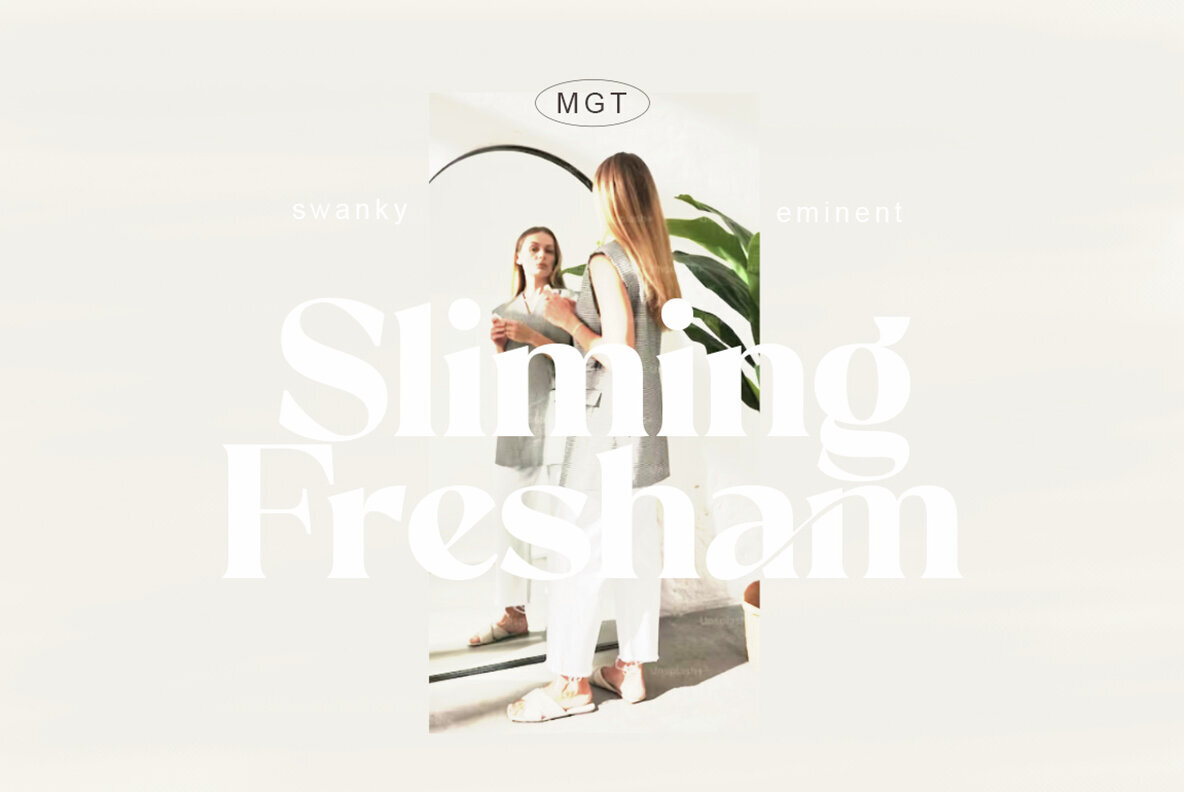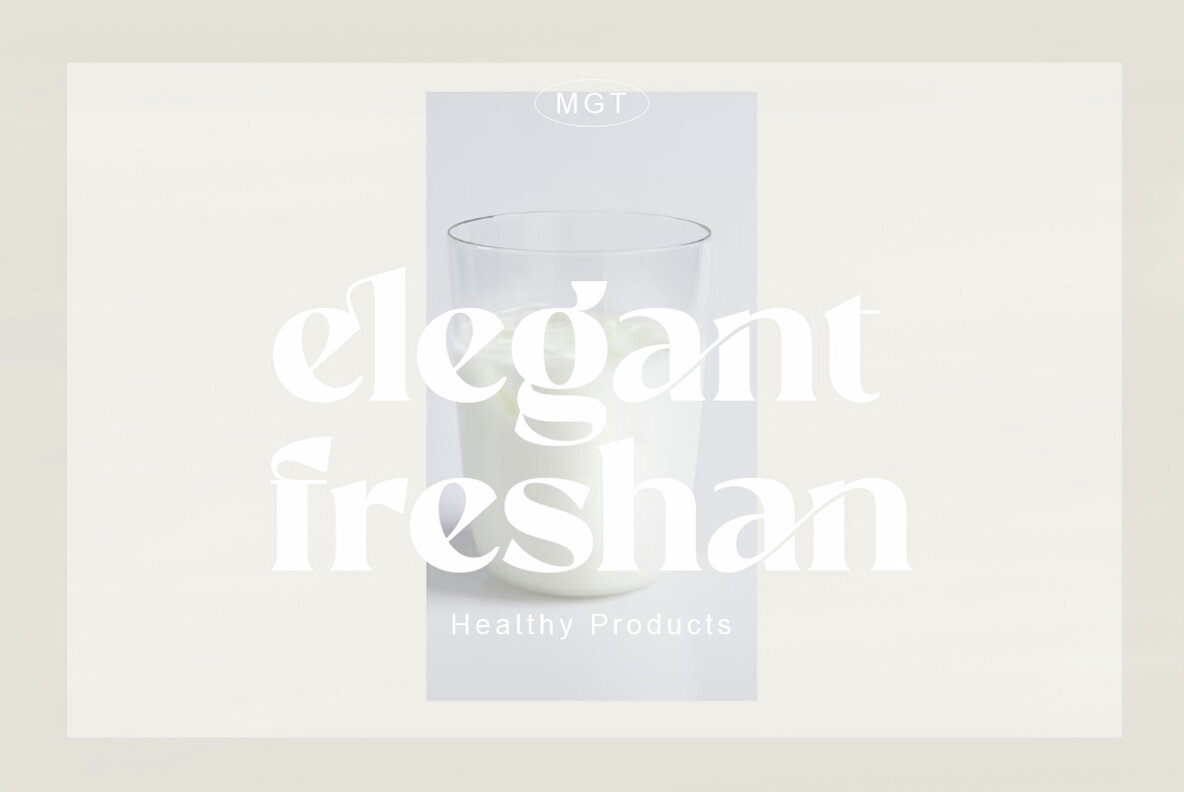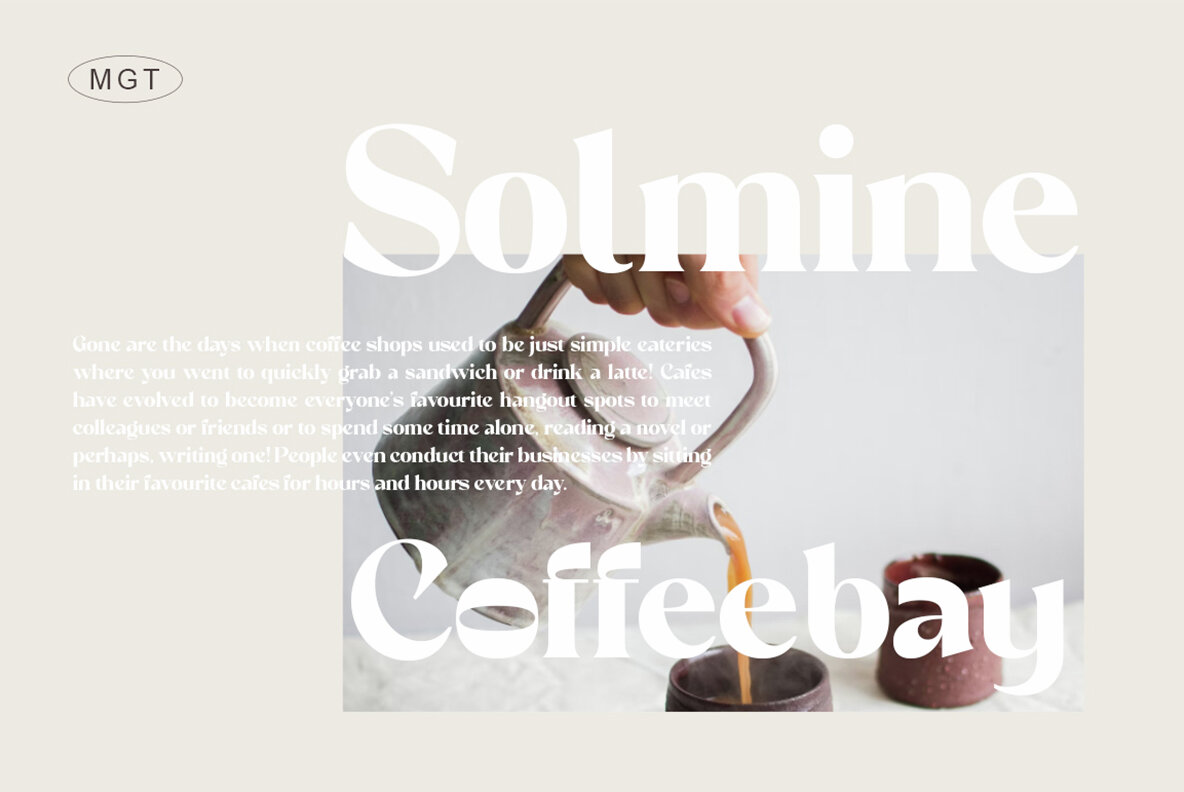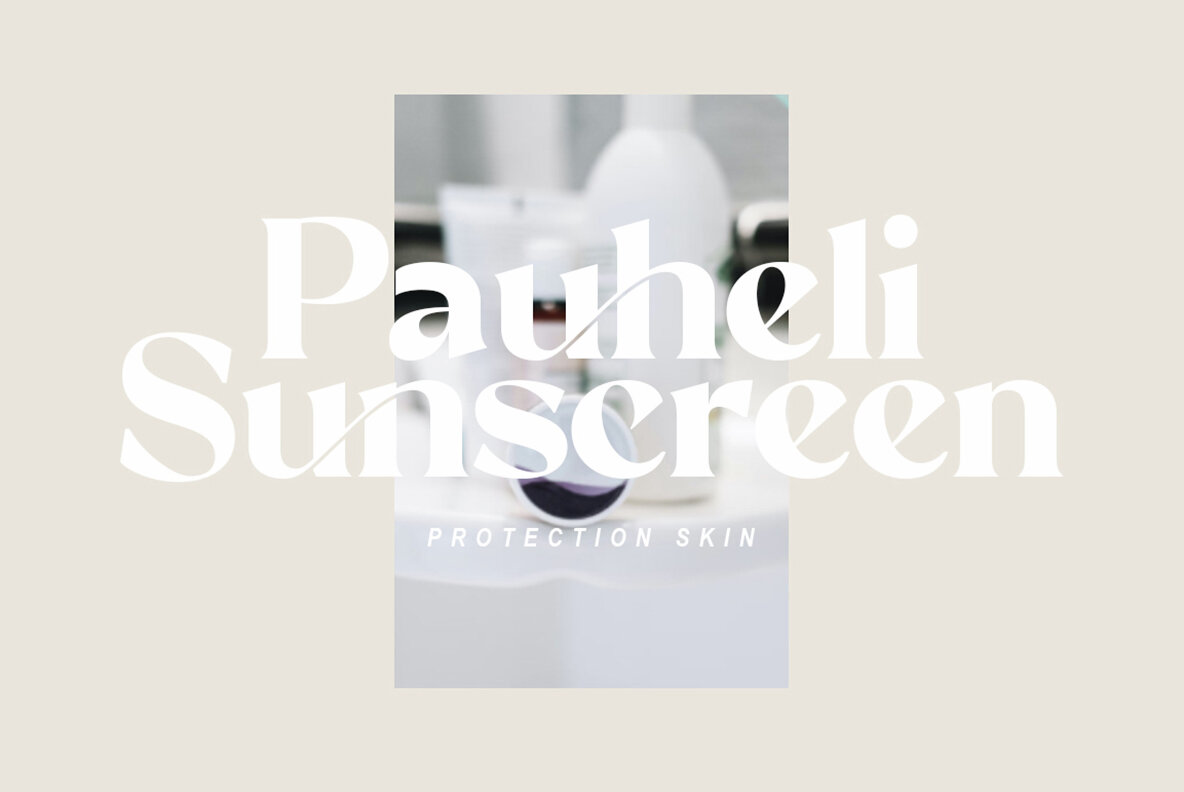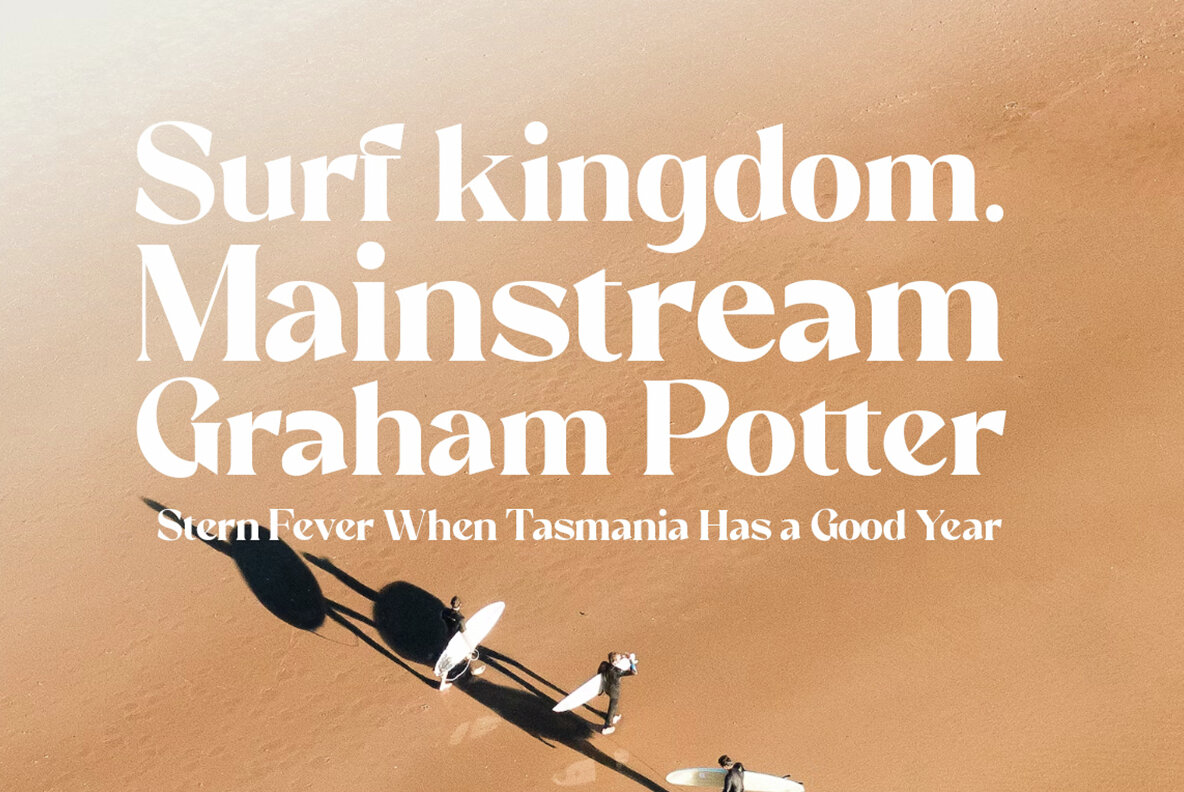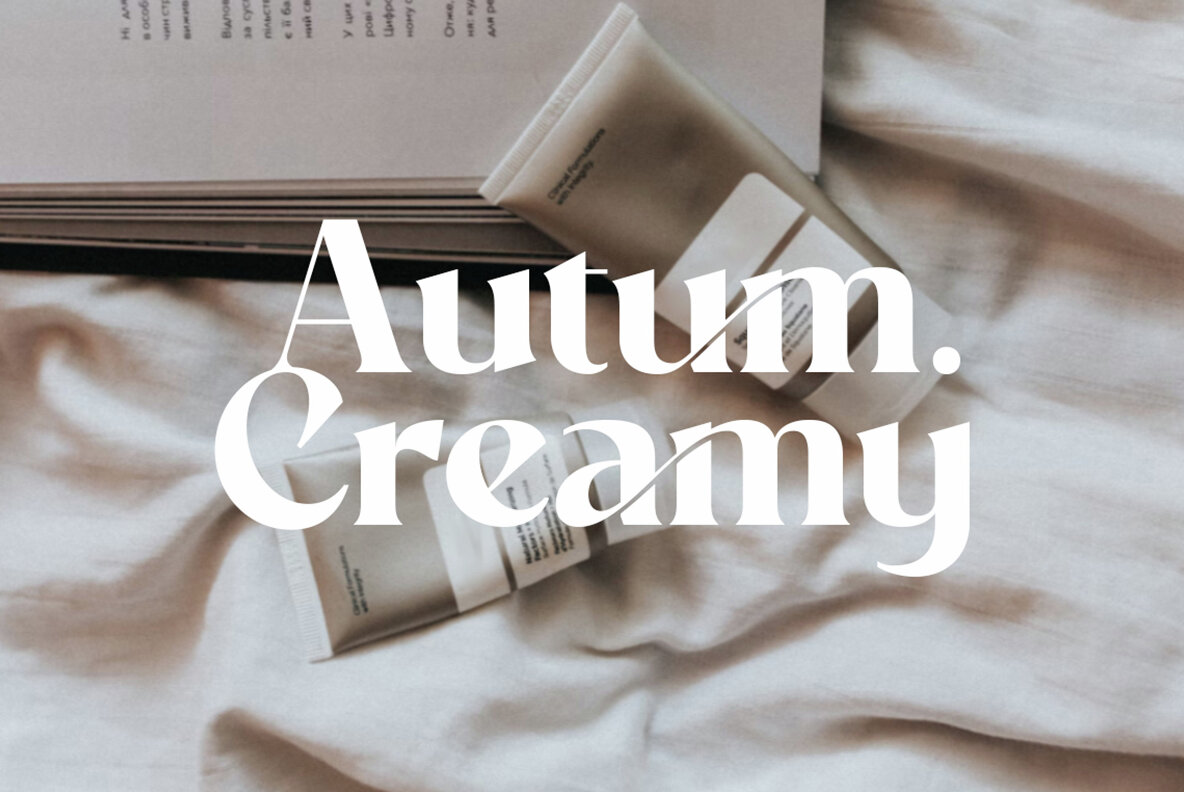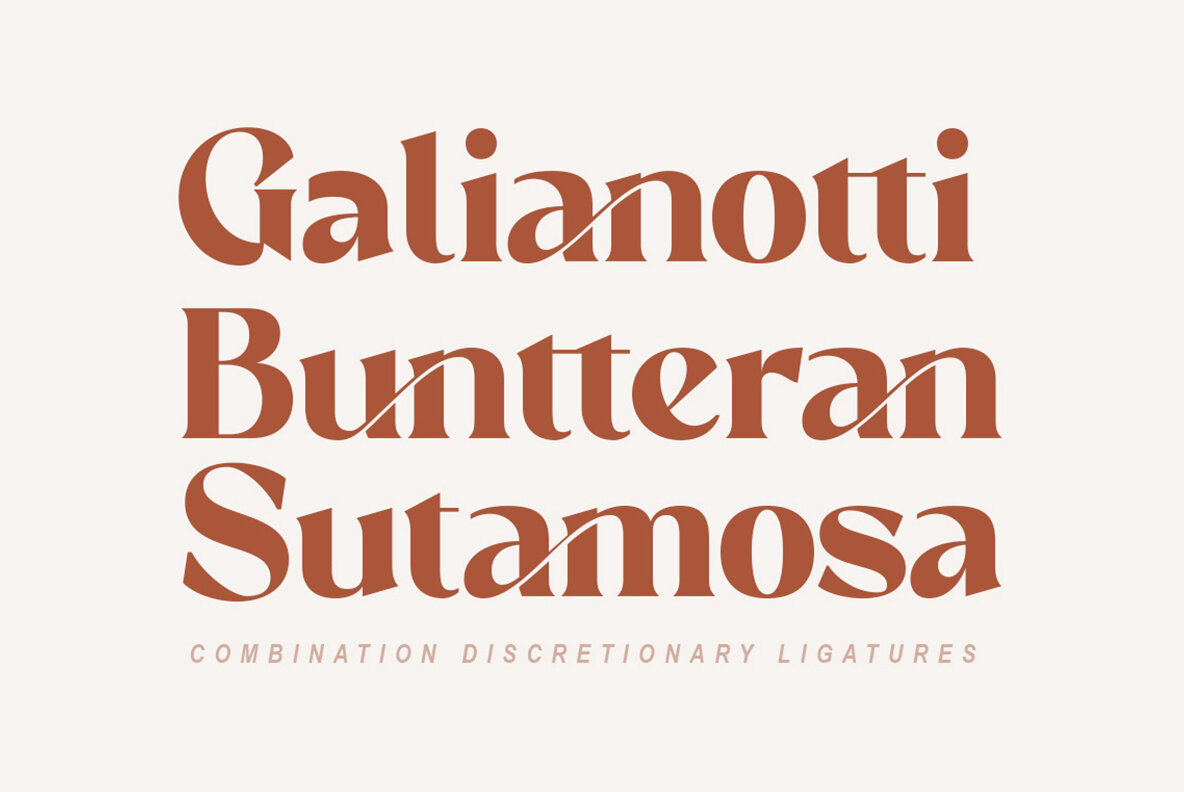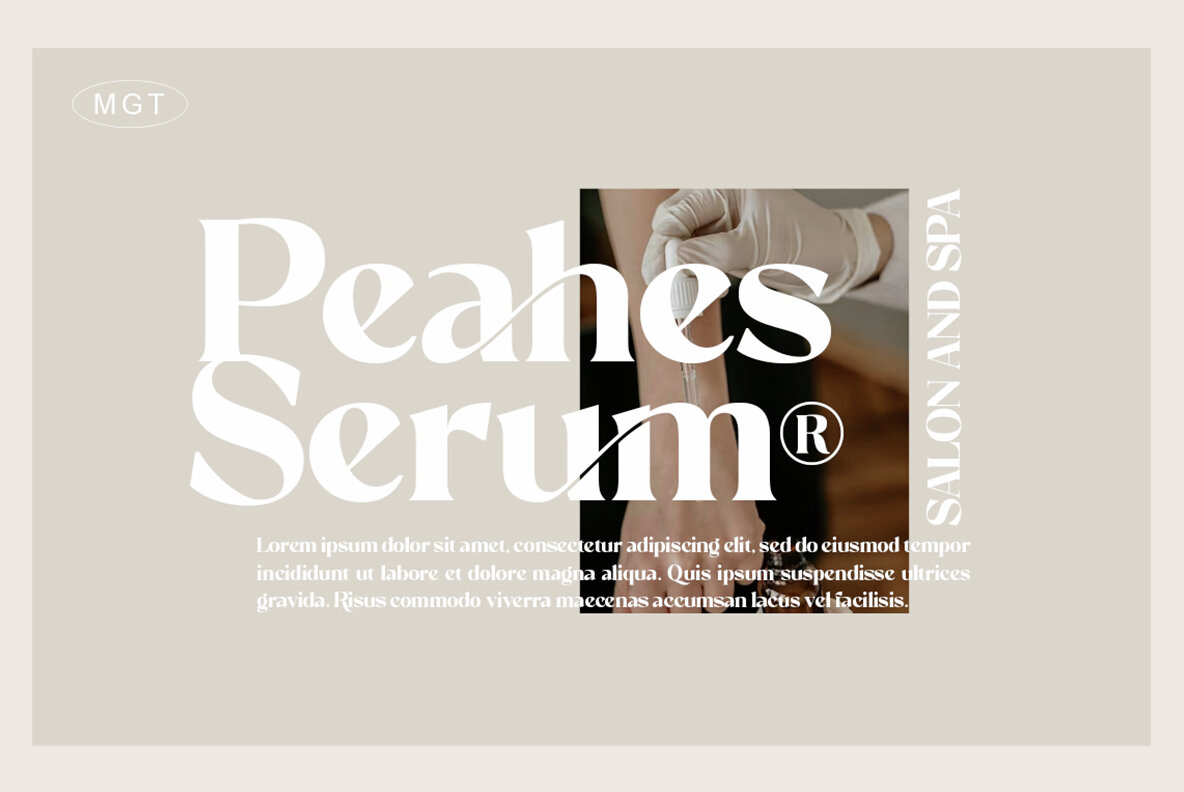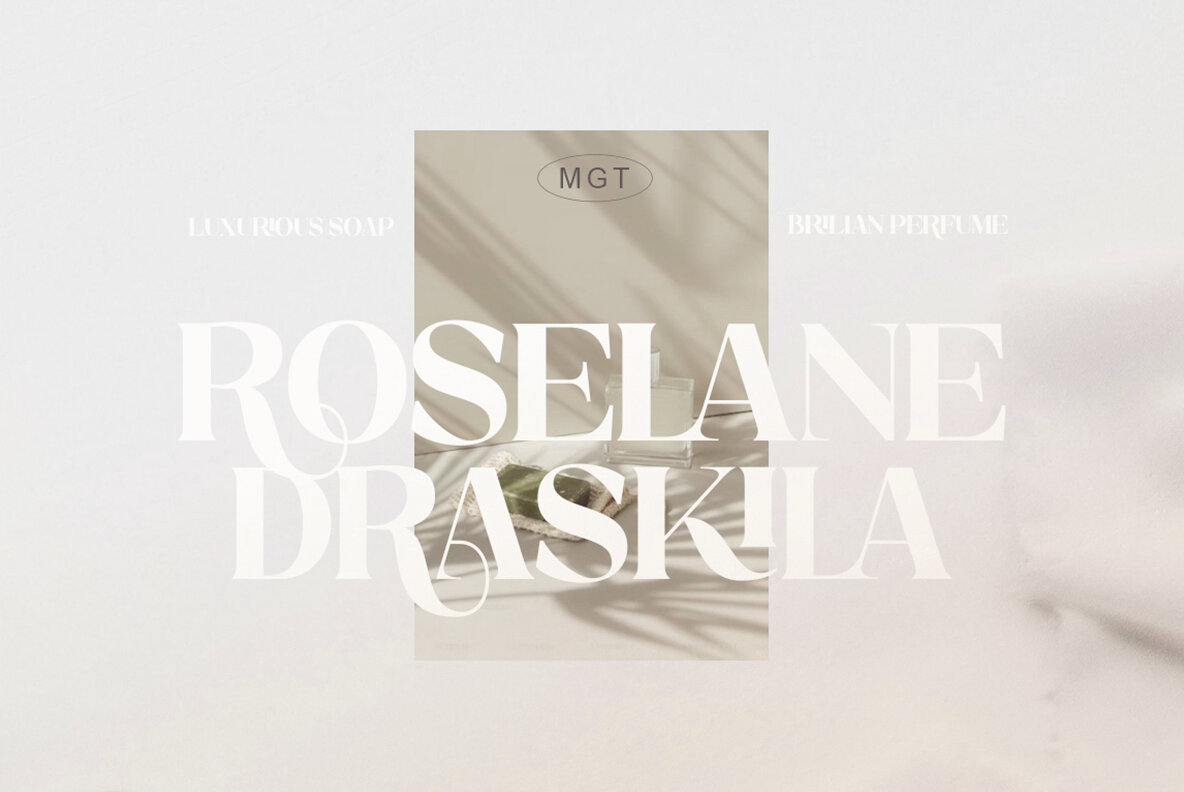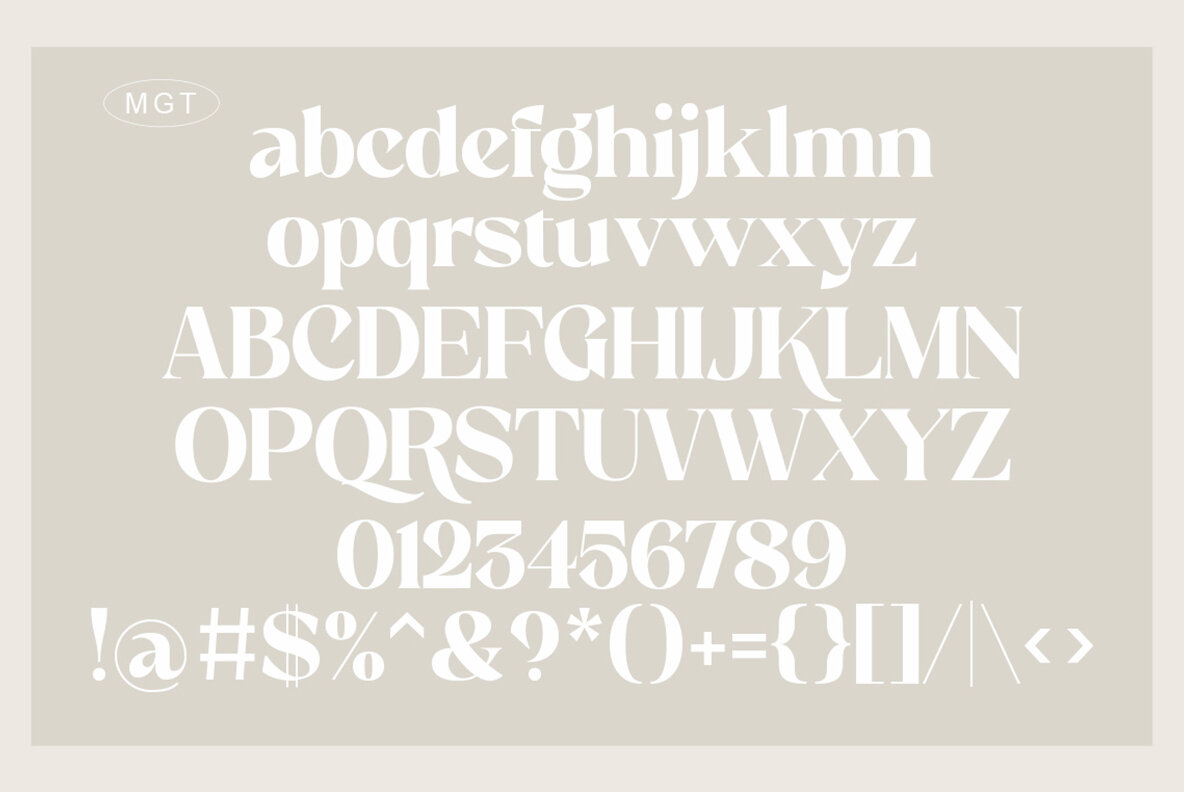
Honey Dolista: Elegant Serif with Versatile Bindings
Honey Dolista brings an elegant serif style enhanced with numerous ligatures and alternative bindings, ensuring your presentation or logo captures attention. Use Honey Dolista to infuse your brand with sophistication, making it perfect for titles, logos, business cards, printed quotes, invitations, cards, packaging, and online platforms.
Features Include
• Uppercase & Lowercase Letters
• Swashes and Ligatures
• Alternate Bindings
• Numbers & Symbols
• Multilingual Support